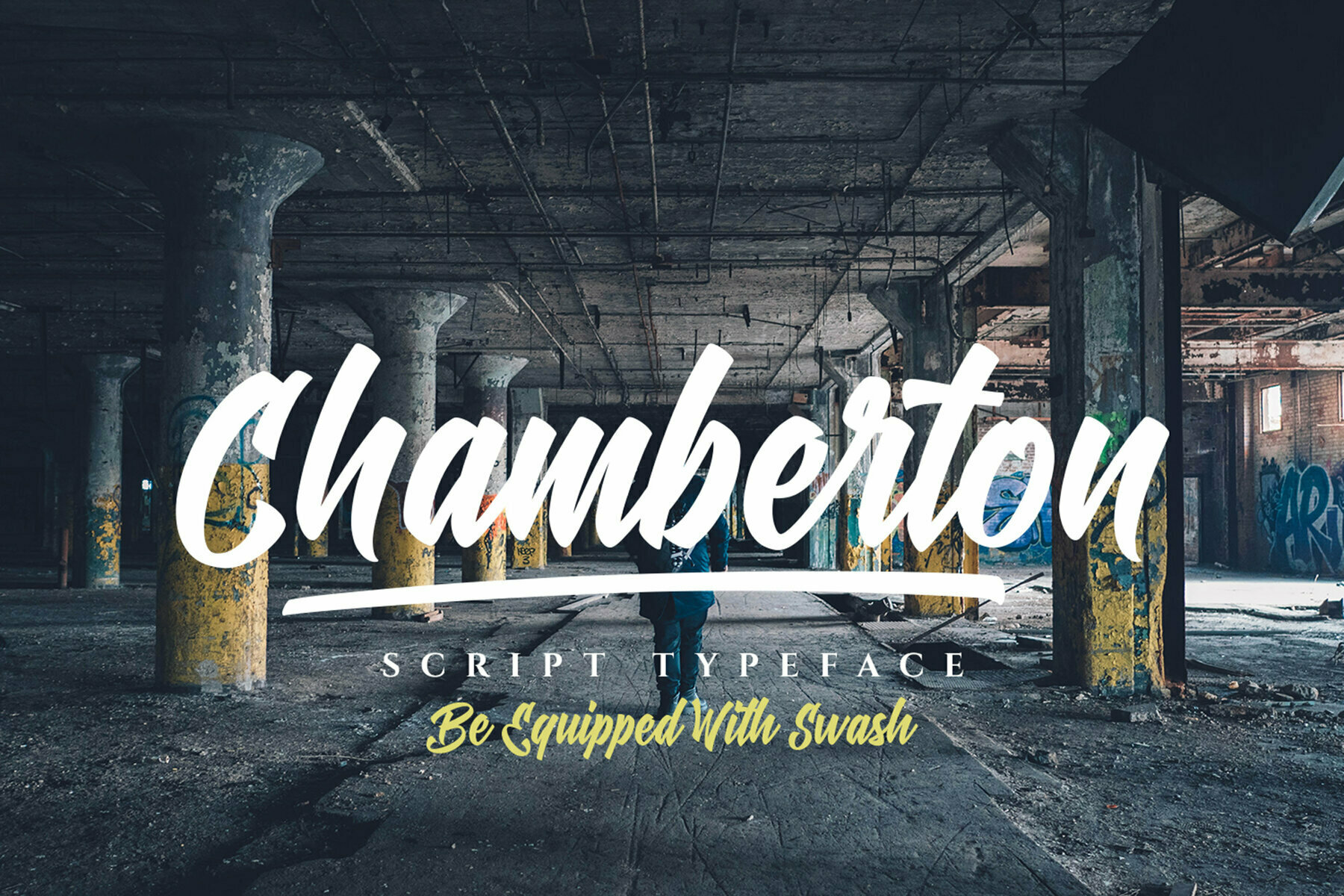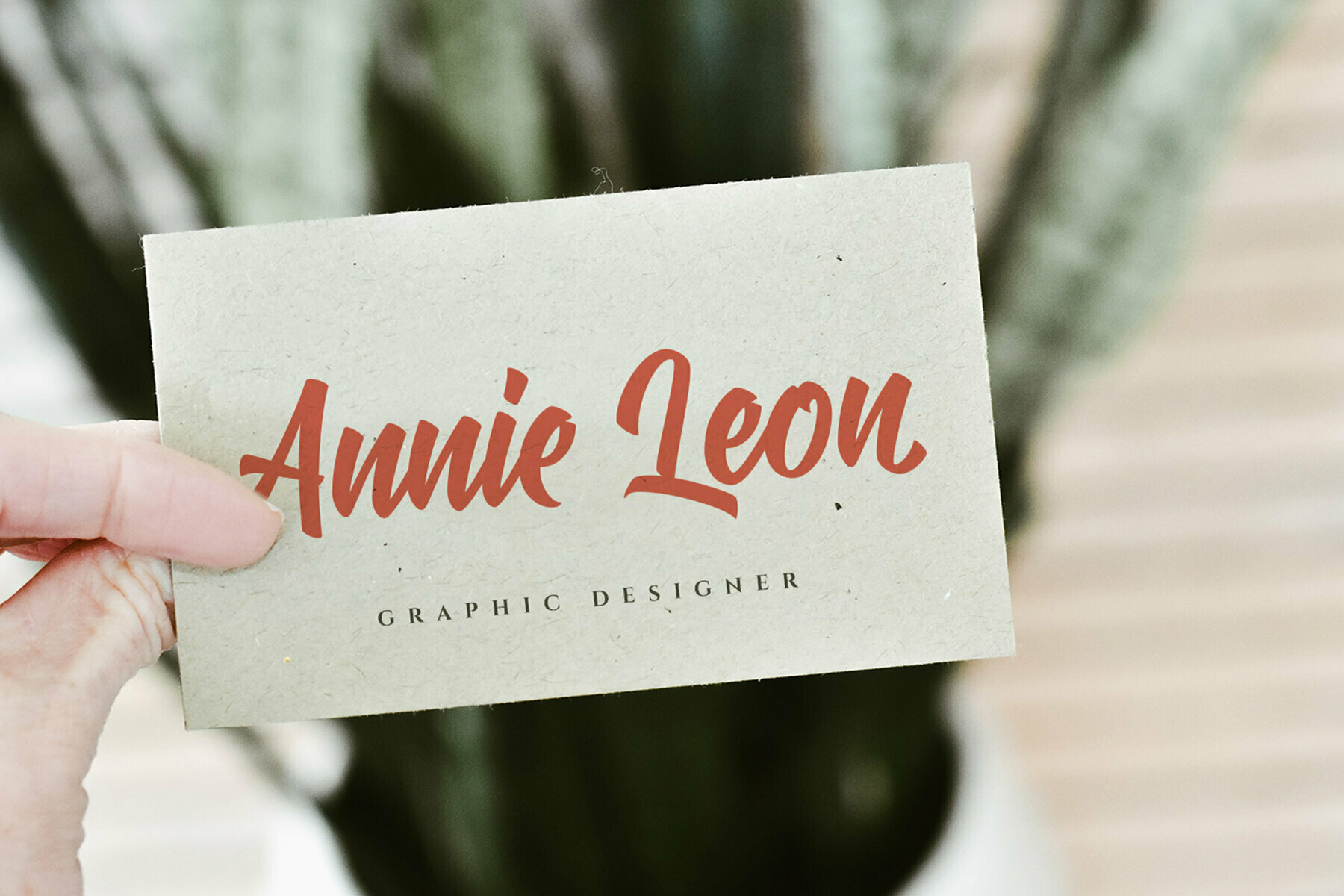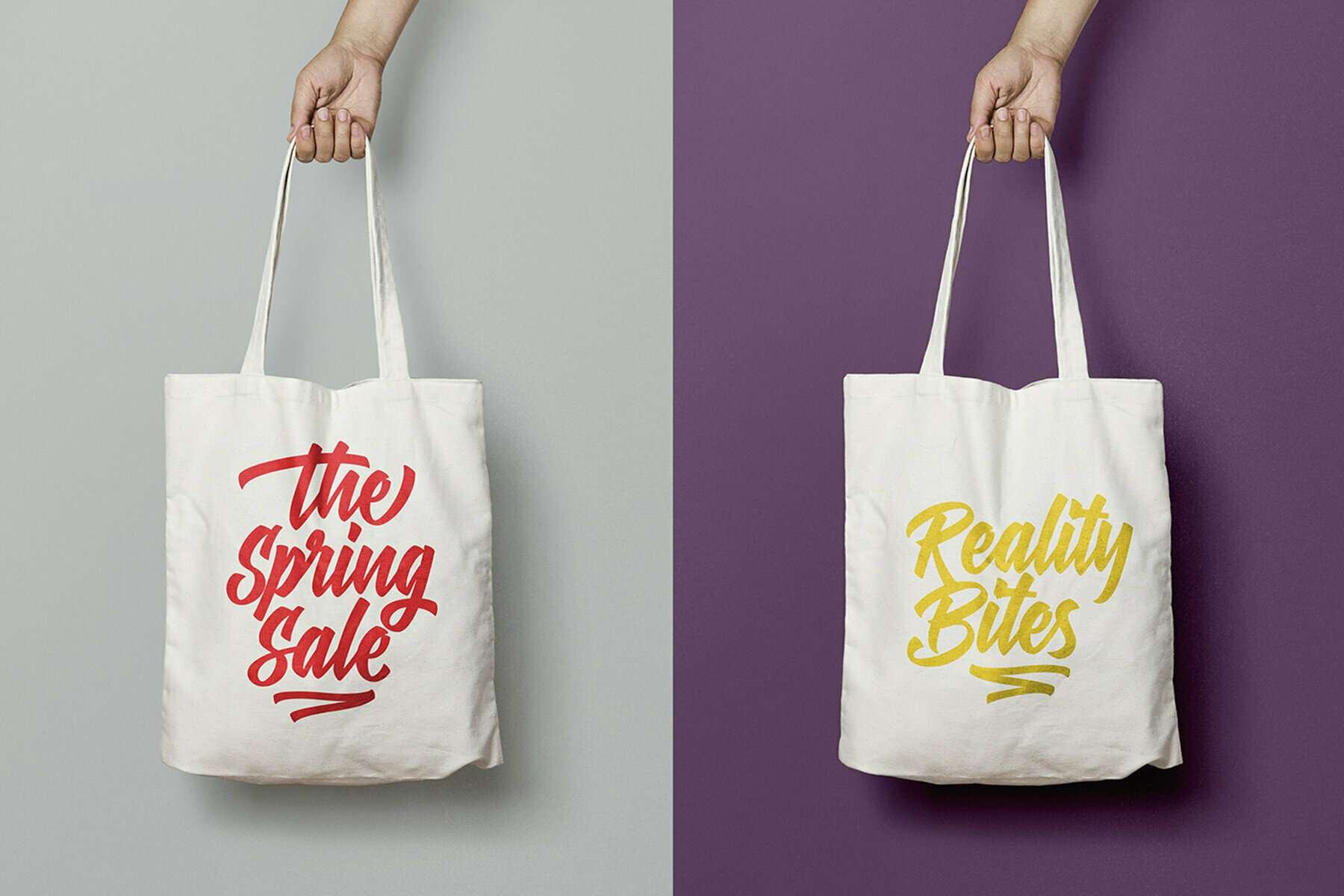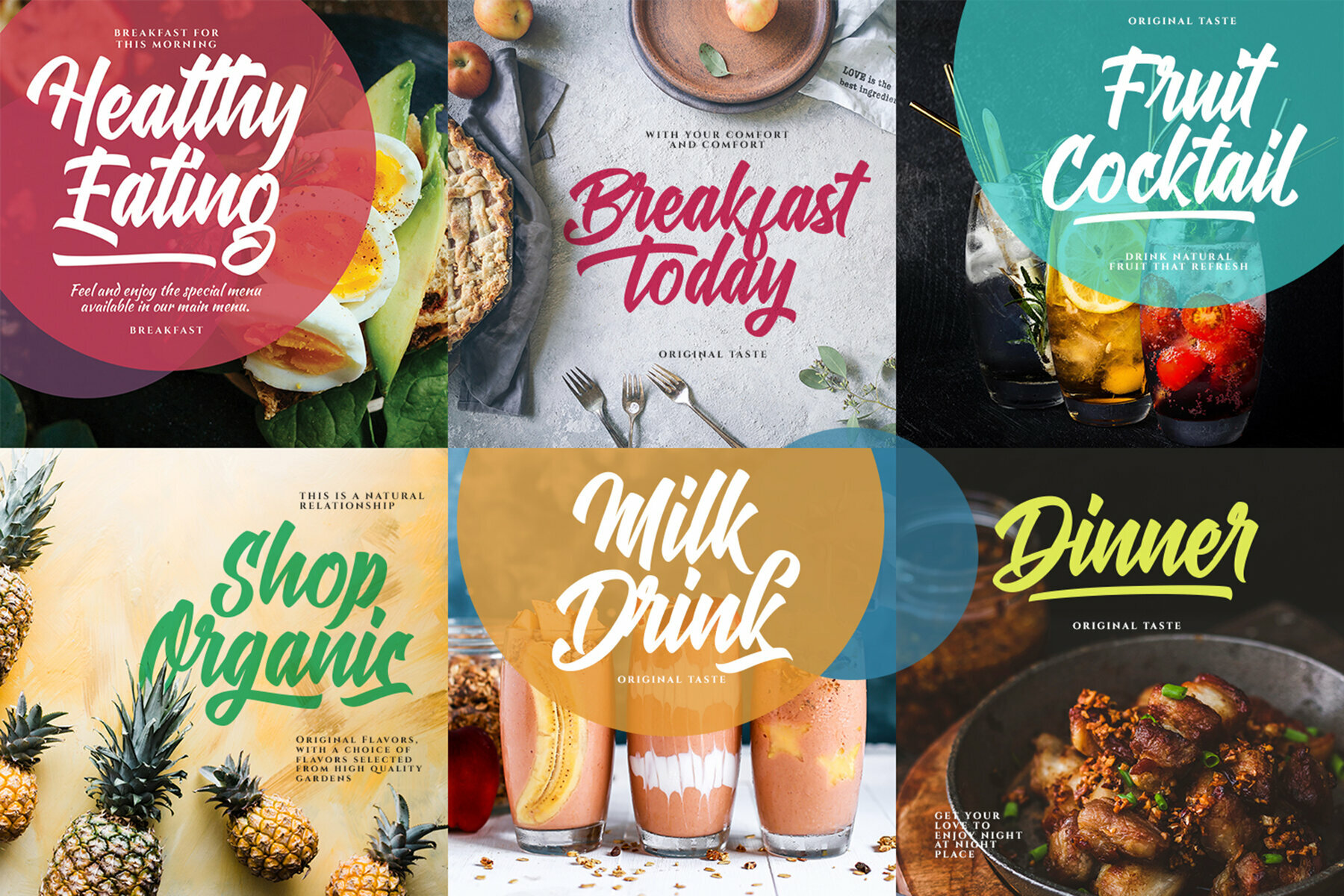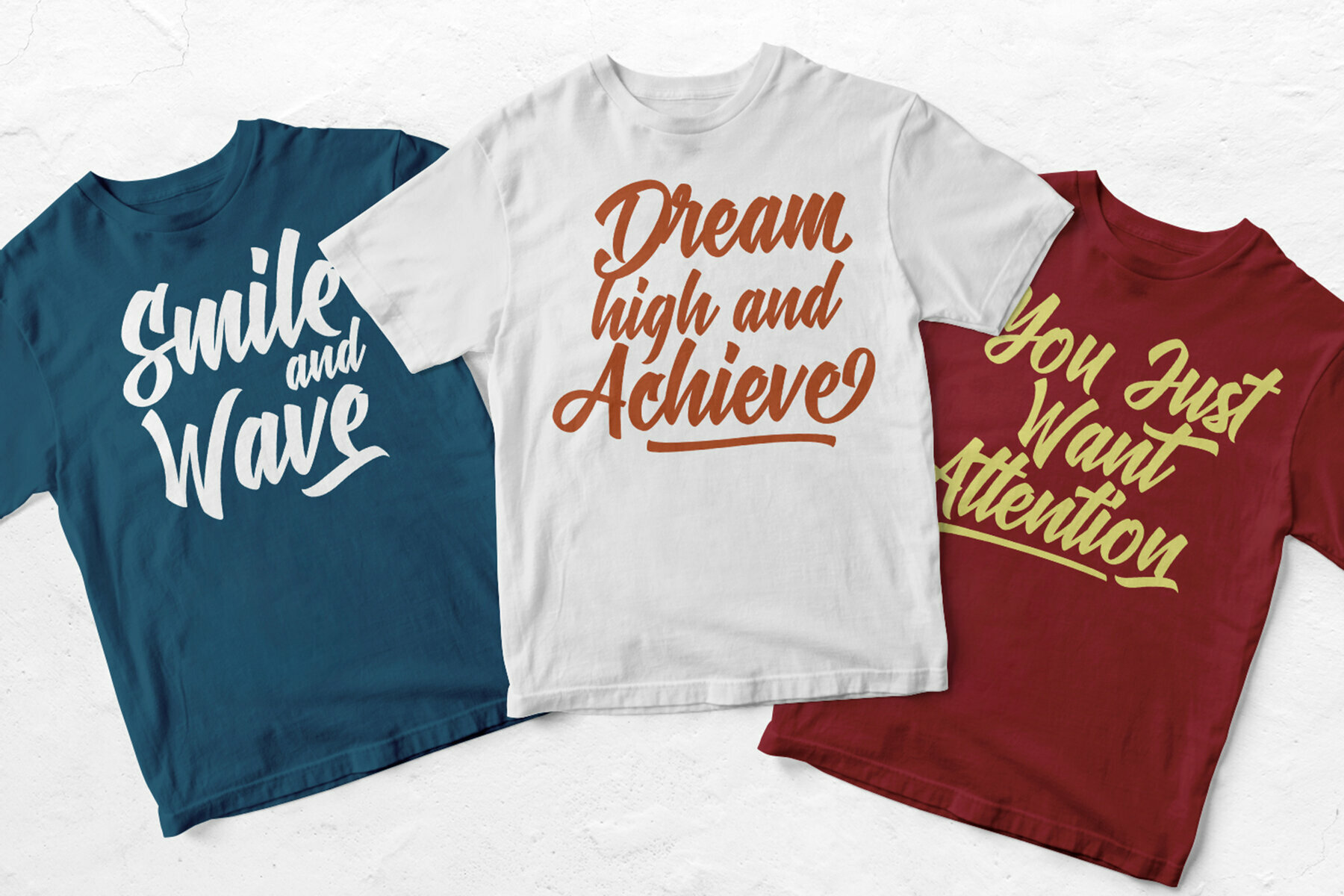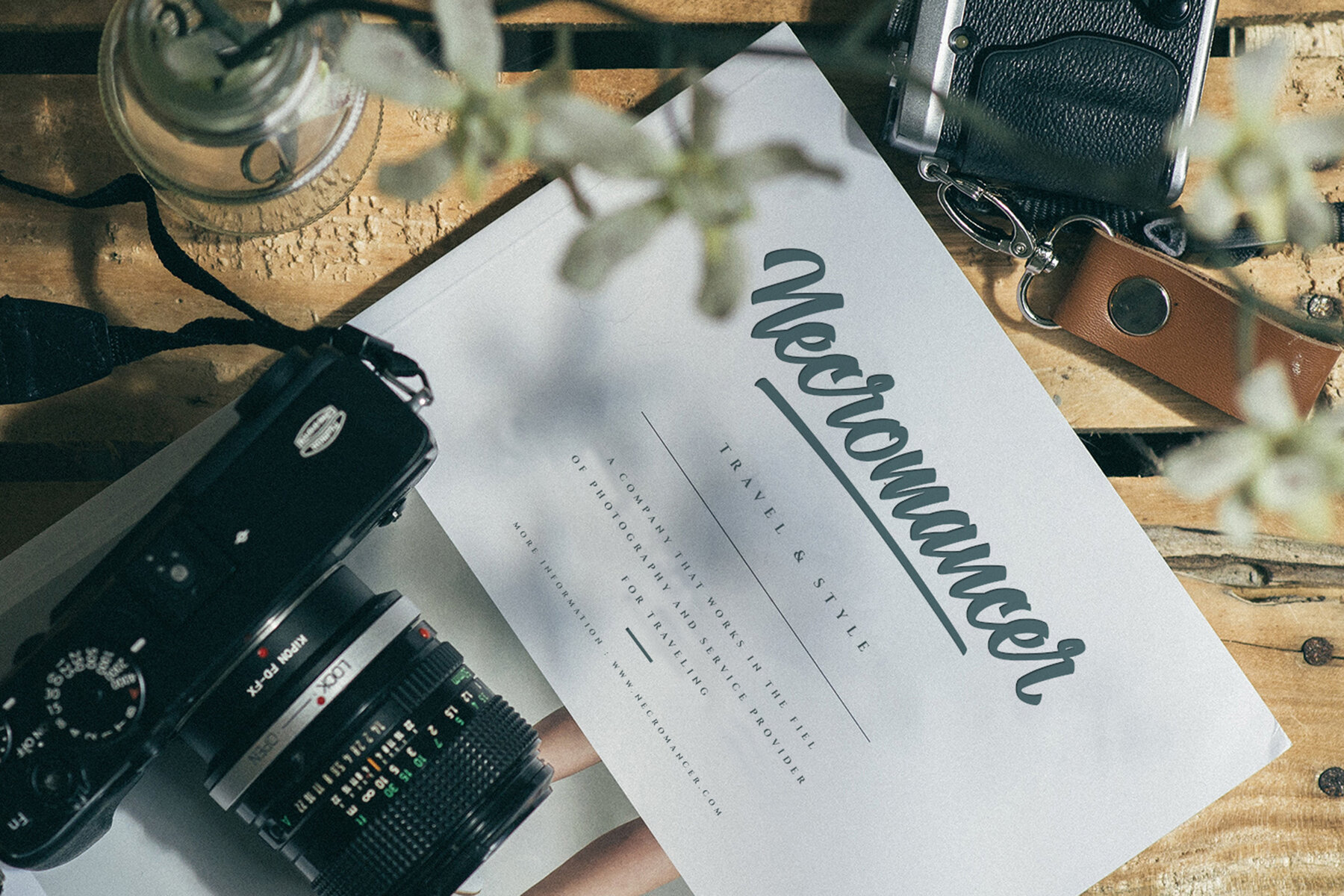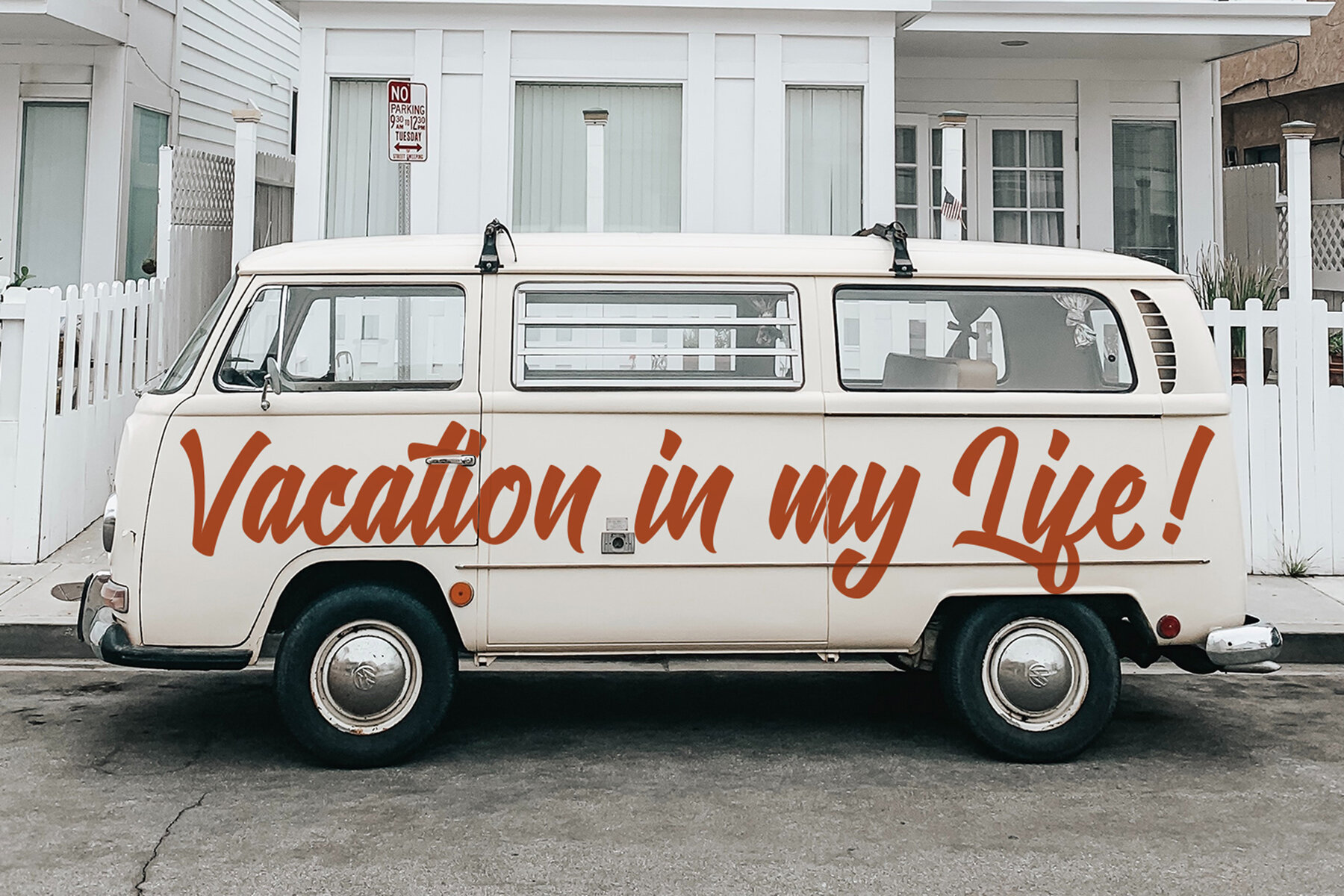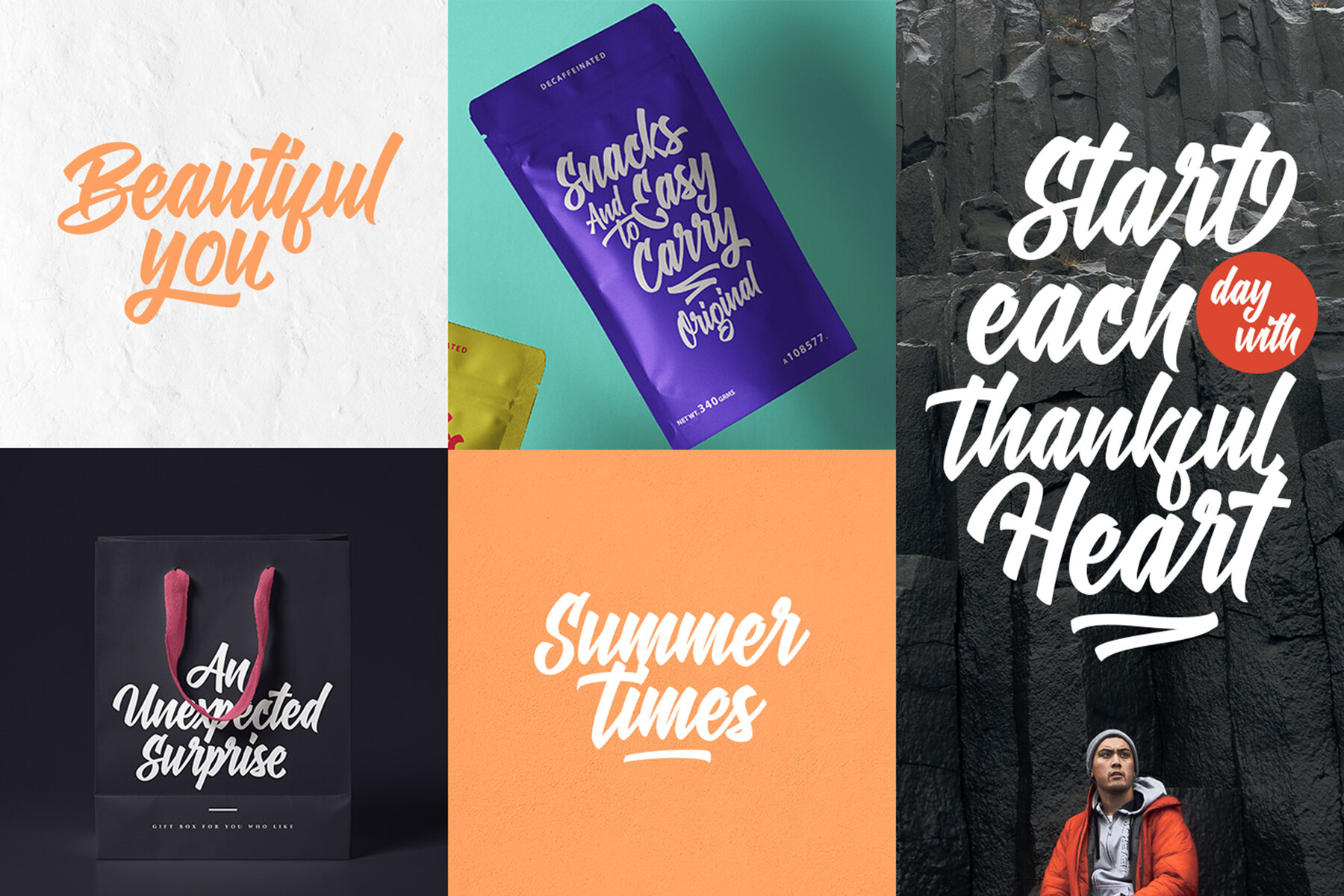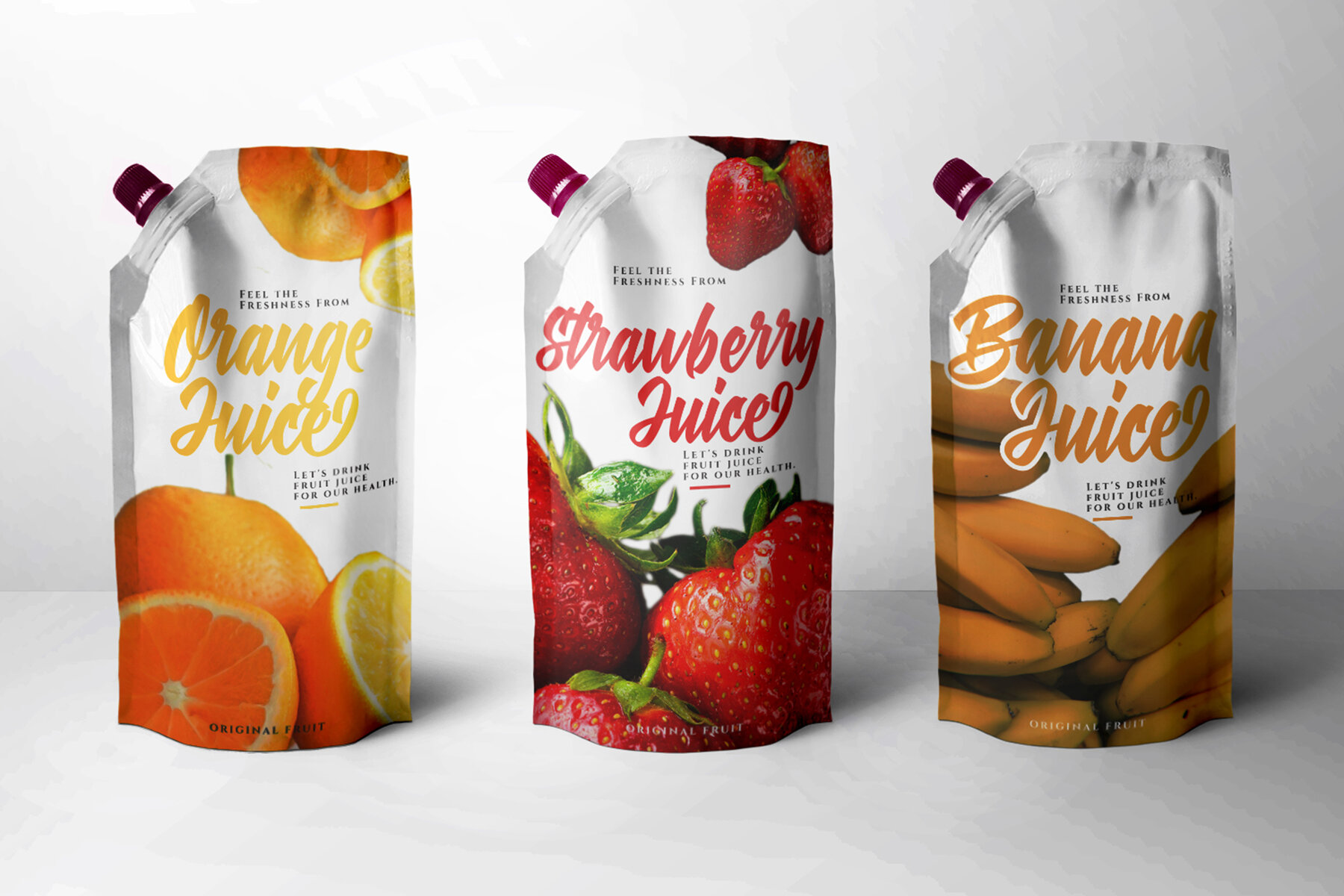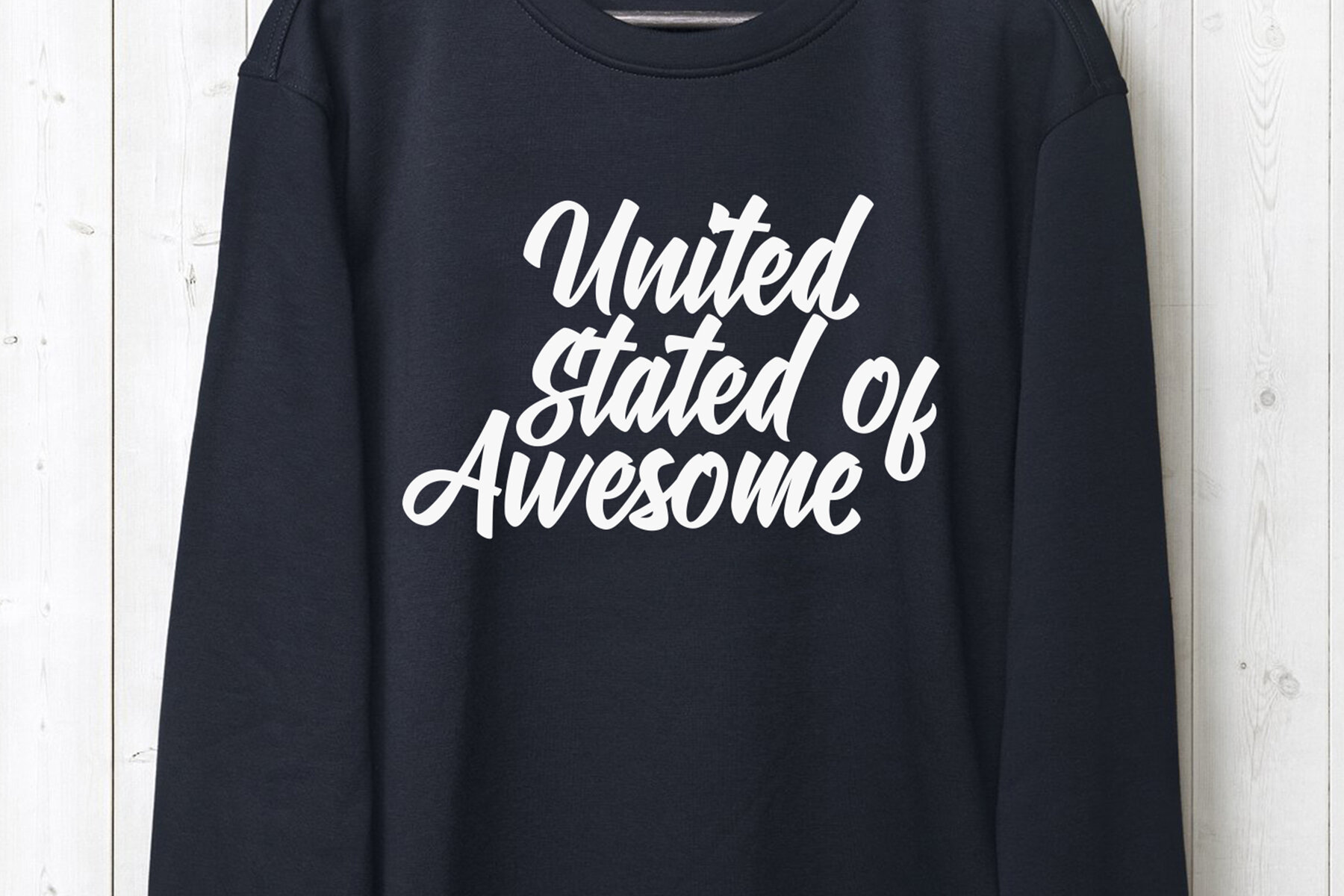
Chamberton Font
Chamberton Regular
Chamberton Swash
Chamberton offers a fluid script design that enhances readability and comfort. This versatile typeface is an excellent choice for an array of applications, ranging from logos and badges to packaging and titles. Its graceful characters allow you to craft compelling messages tailored to your creative vision, ensuring your designs resonate effectively.Chamberton: An Adaptable Script Font for Various Designs